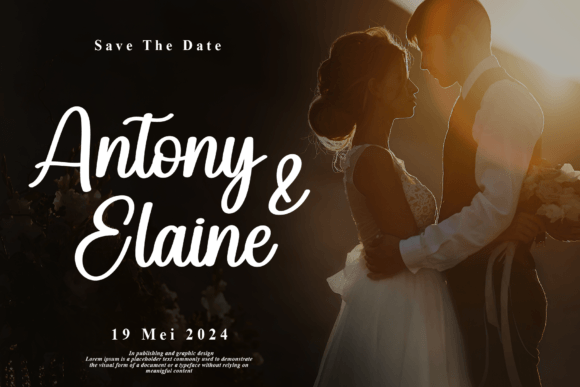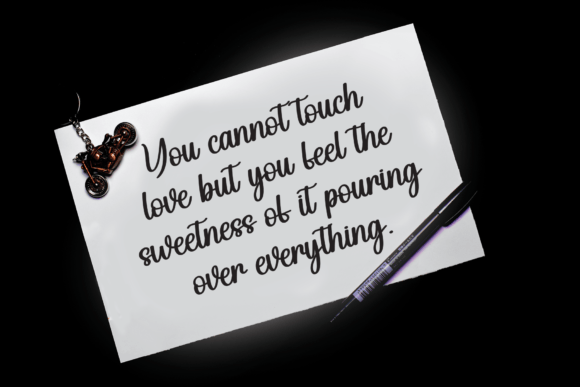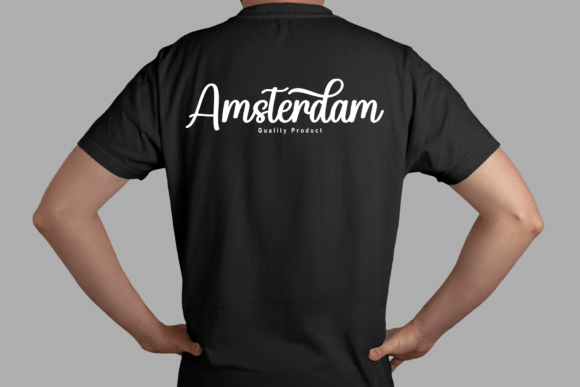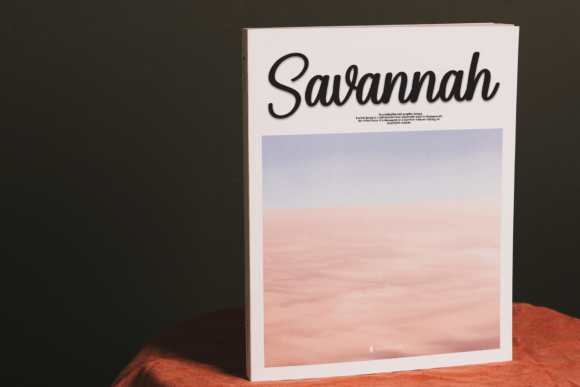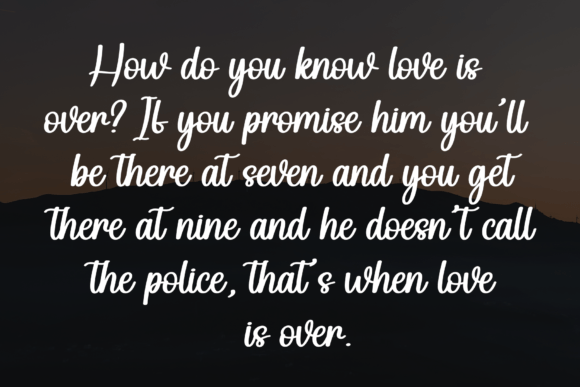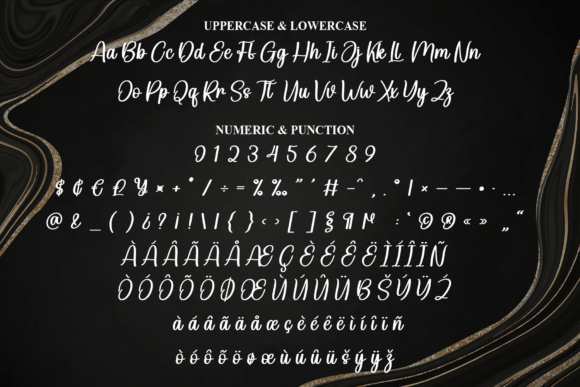
Introducing Black Sample Font: The Bold and Eye-Catching Choice for Designers
In the world of typography, fonts play a crucial role in conveying messages and setting the tone for a design. For designers and crafters looking for a bold and attention-grabbing font, Black Sample Font is an excellent choice. This handwritten font features thick, dark lines that give it a strong and eye-catching appearance, making it perfect for headlines, posters, and any design where you want your message to stand out.
What is Black Sample Font?
Black Sample Font is a bold, handwritten font that is reminiscent of writing with a heavy marker. Its thick, dark lines give it a distinctive look that is sure to grab attention. The font’s bold and confident appearance makes it ideal for use in a variety of design projects, from posters and flyers to logos and branding materials.
Key Features of Black Sample Font
- Bold and eye-catching: Black Sample Font features thick, dark lines that make it stand out from other fonts.
- Handwritten appearance: The font has a natural, handwritten look that gives it a personal touch.
- Versatile: Black Sample Font can be used in a variety of design projects, from posters and flyers to logos and branding materials.
- Easy to read: Despite its bold appearance, Black Sample Font is easy to read, making it perfect for use in headlines and titles.
Uses for Black Sample Font
Black Sample Font is a versatile font that can be used in a variety of design projects. Here are some ideas for using this font:
- Posters and flyers: Use Black Sample Font to create eye-catching posters and flyers that grab attention.
- Headlines and titles: Use the font to create bold and attention-grabbing headlines and titles for your designs.
- Logos and branding: Black Sample Font can be used to create bold and memorable logos and branding materials.
- Signs and banners: The font’s bold appearance makes it perfect for use in signs and banners.
Why Choose Black Sample Font?
There are many fonts available for designers and crafters to choose from, but Black Sample Font stands out from the crowd. Here are some reasons why you might choose this font:
- Unique appearance: Black Sample Font has a distinctive look that sets it apart from other fonts.
- High-quality: Black Sample Font is a high-quality font that is designed to look great in a variety of design projects.
Tips for Using Black Sample Font
Here are some tips for using Black Sample Font in your design projects:
- Use it sparingly: Because of its bold appearance, it’s best to use Black Sample Font sparingly to avoid overwhelming your design.
- Pair it with other fonts: Black Sample Font looks great when paired with other fonts, so don’t be afraid to experiment with different combinations.
- Experiment with colors: While the font’s dark lines are a key part of its appearance, you can experiment with different colors to create a unique look.
Black Sample Font is a bold and eye-catching font that is perfect for designers and crafters looking to add a personal touch to their design projects. With its thick, dark lines and handwritten appearance, this font is sure to grab attention and make your message stand out. Whether you’re creating posters, flyers, logos, or branding materials, Black Sample Font is a great choice.
So why not give Black Sample Font a try? With its ease of use, high-quality design, and versatile appearance, it’s a font that’s sure to become a staple in your design toolkit.